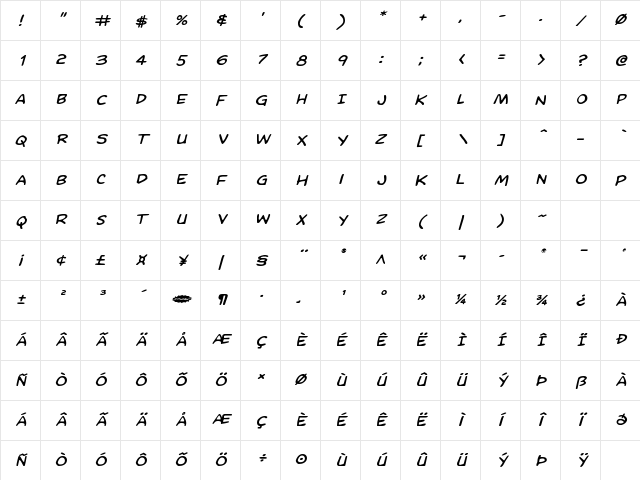
Domino Mask Expanded Italic Free Font
Domino Mask Expanded Italic Expanded Italic
Style: Expanded Italic
Design Context for Domino Mask Expanded Italic
Domino Mask Expanded Italic is a composed and adaptable typeface that performs quietly and consistently across a wide range of design contexts. The slanted form adds forward momentum and visual energy.
Pro Tip: Use Domino Mask Expanded Italic for emphasis, pull quotes, and subheadings where its slanted energy can add rhythm to the layout.